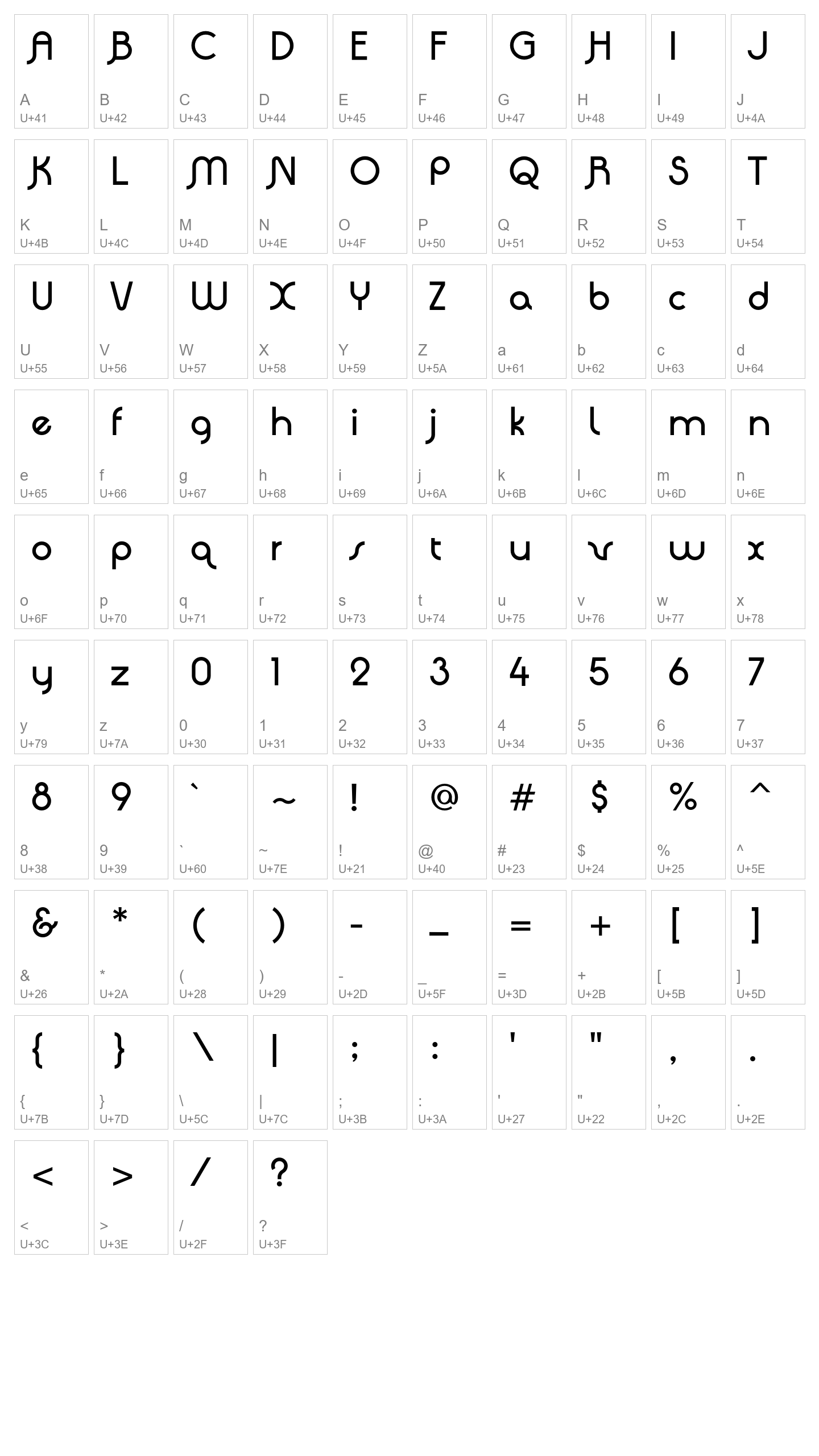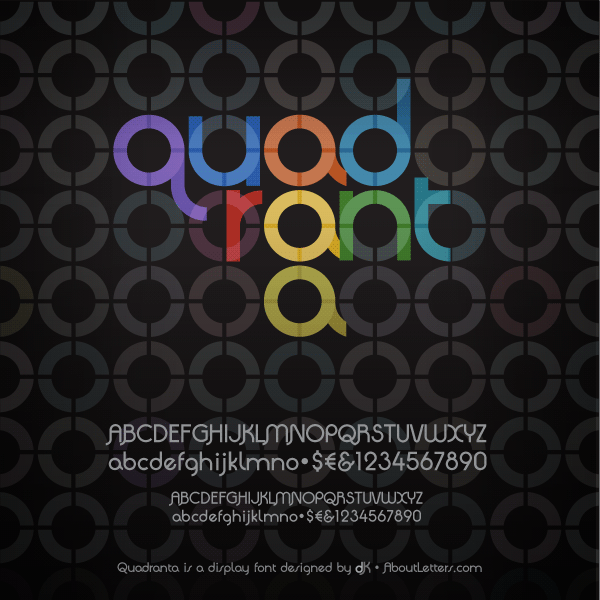
Quadranta
The initial design was started with quadrant arcs. That is how this font got the name.
Quadranta is a display font. It's great for logo and title designs.